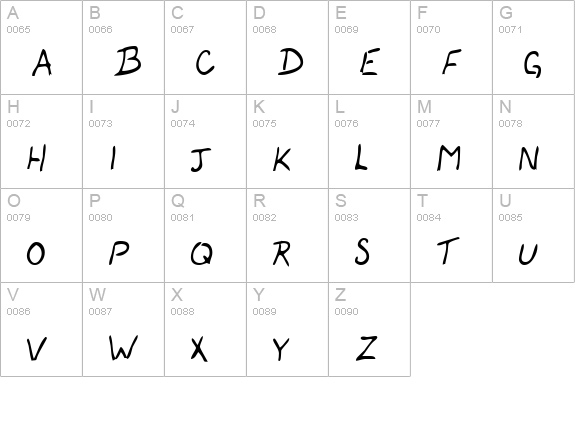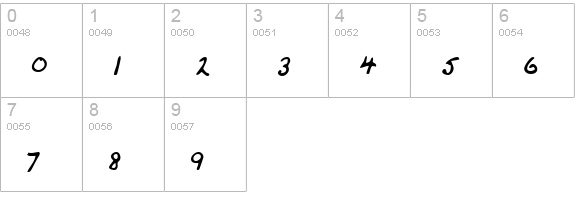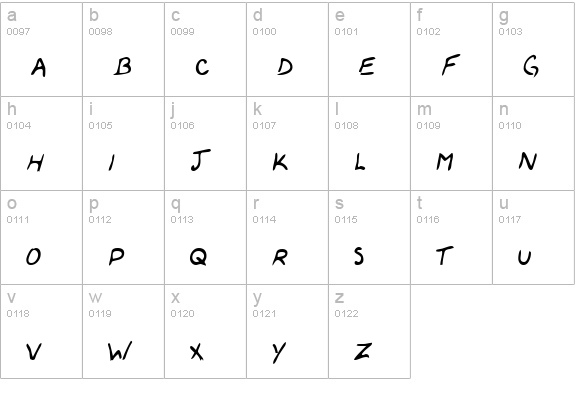
ColemansHand Regular is the standard, neutral variant in the ColemansHand typeface family \xE2\x80\x94 well suited to general body text, paragraphs, and standard typographic work.
ColemansHand Regular font is a charming and versatile typeface that exudes a sense of warmth and friendliness. With its playful and handwritten style, this font is perfect for adding a personal touch to your projects. Whether you are designing invitations, greeting cards, or social media graphics, ColemansHand Regular font will bring a unique and inviting look to your designs. Best of all, ColemansHand Regular font is available for free download at FontsMarket.com. You can easily access this delightful font and start using it in your creative projects without any cost. Don't miss out on the opportunity to enhance your designs with the beauty and character of ColemansHand Regular font - download it today and let your creativity shine!